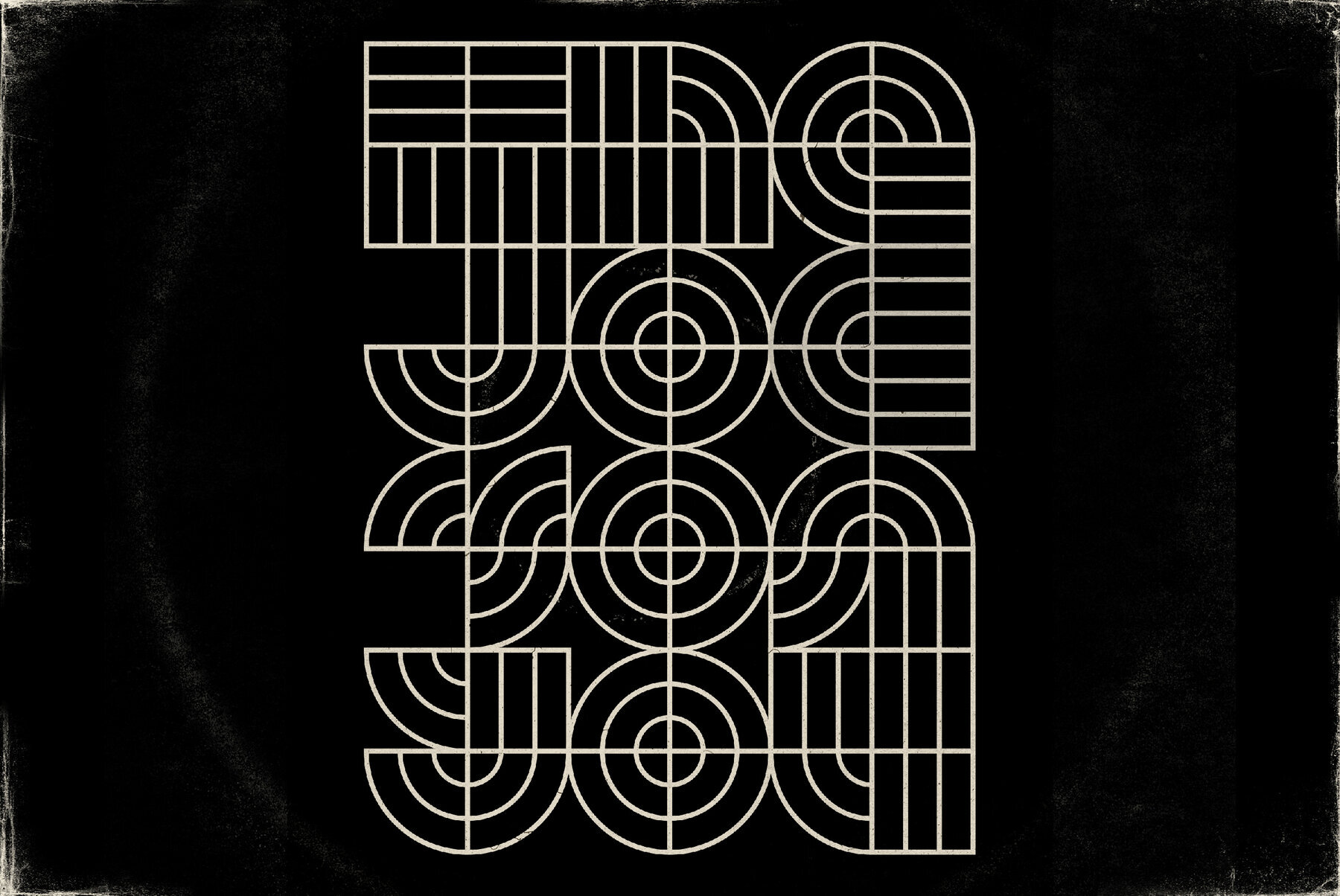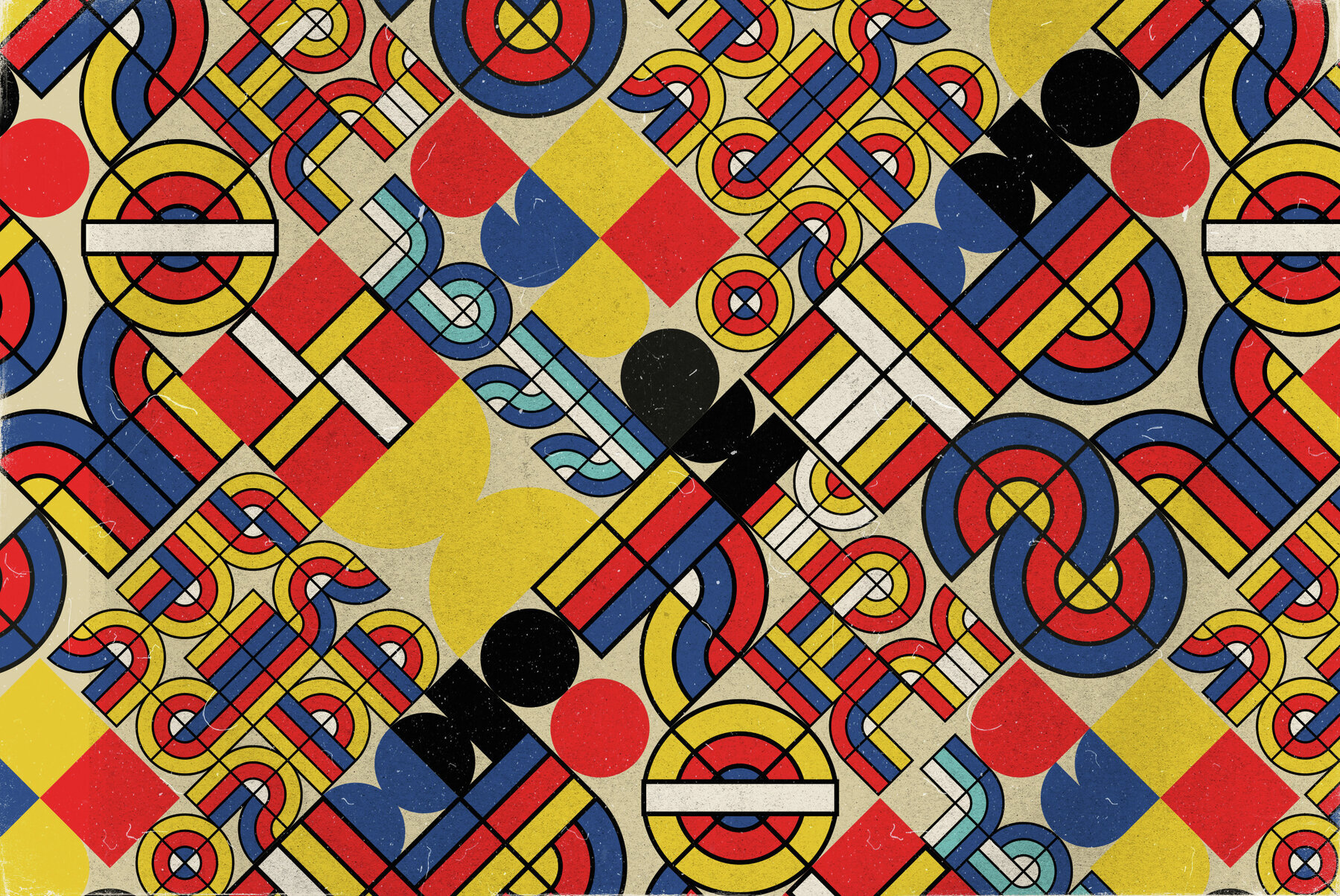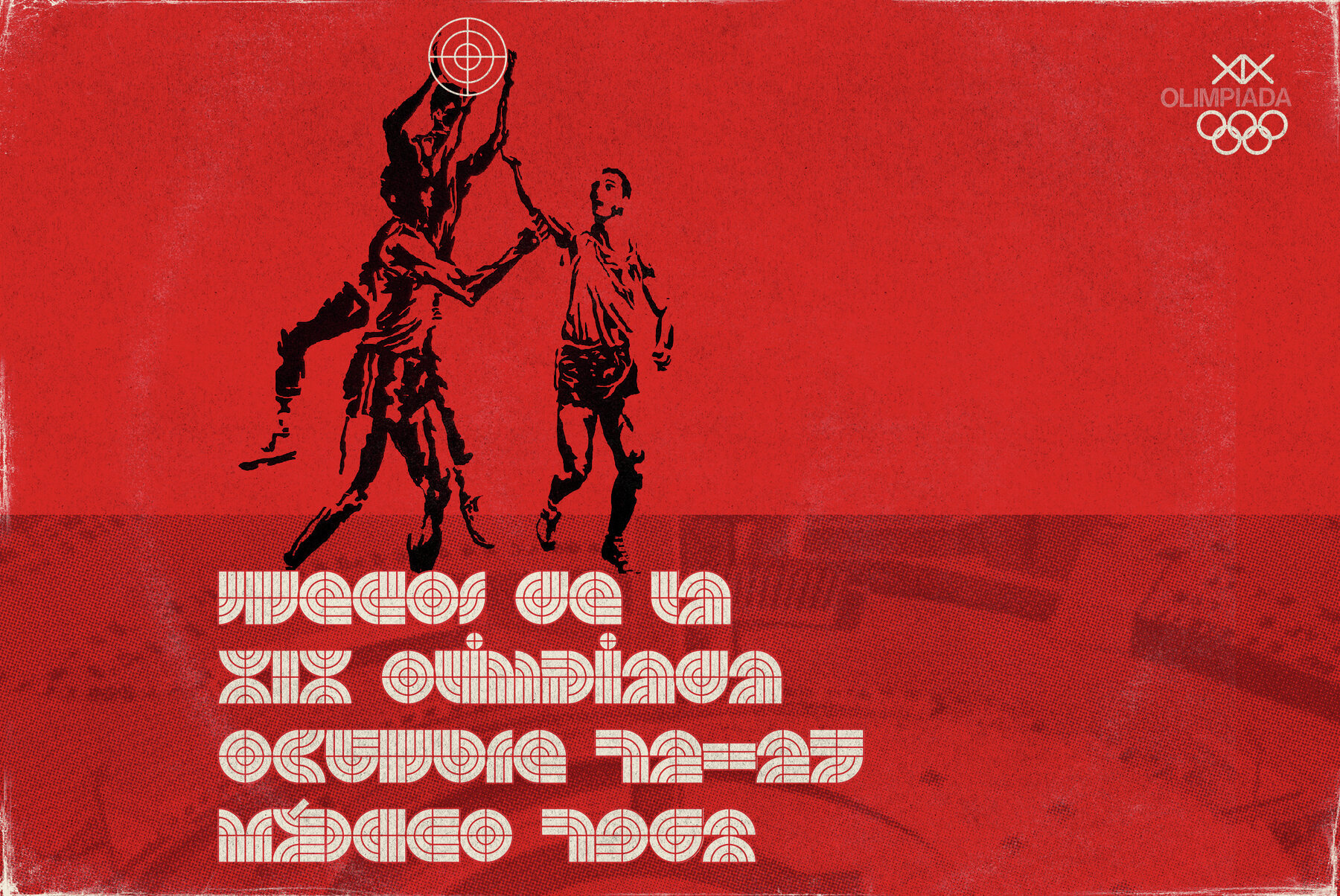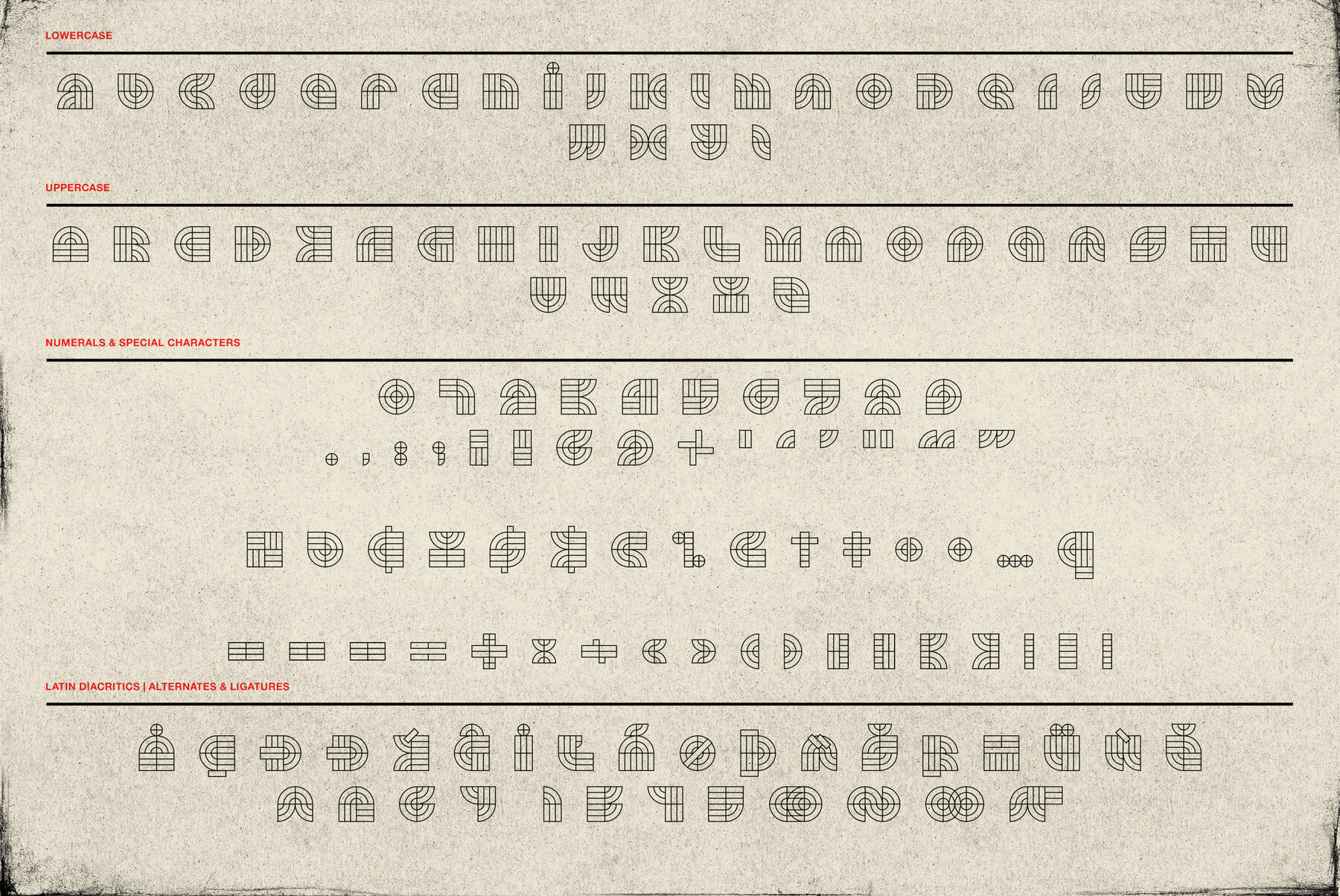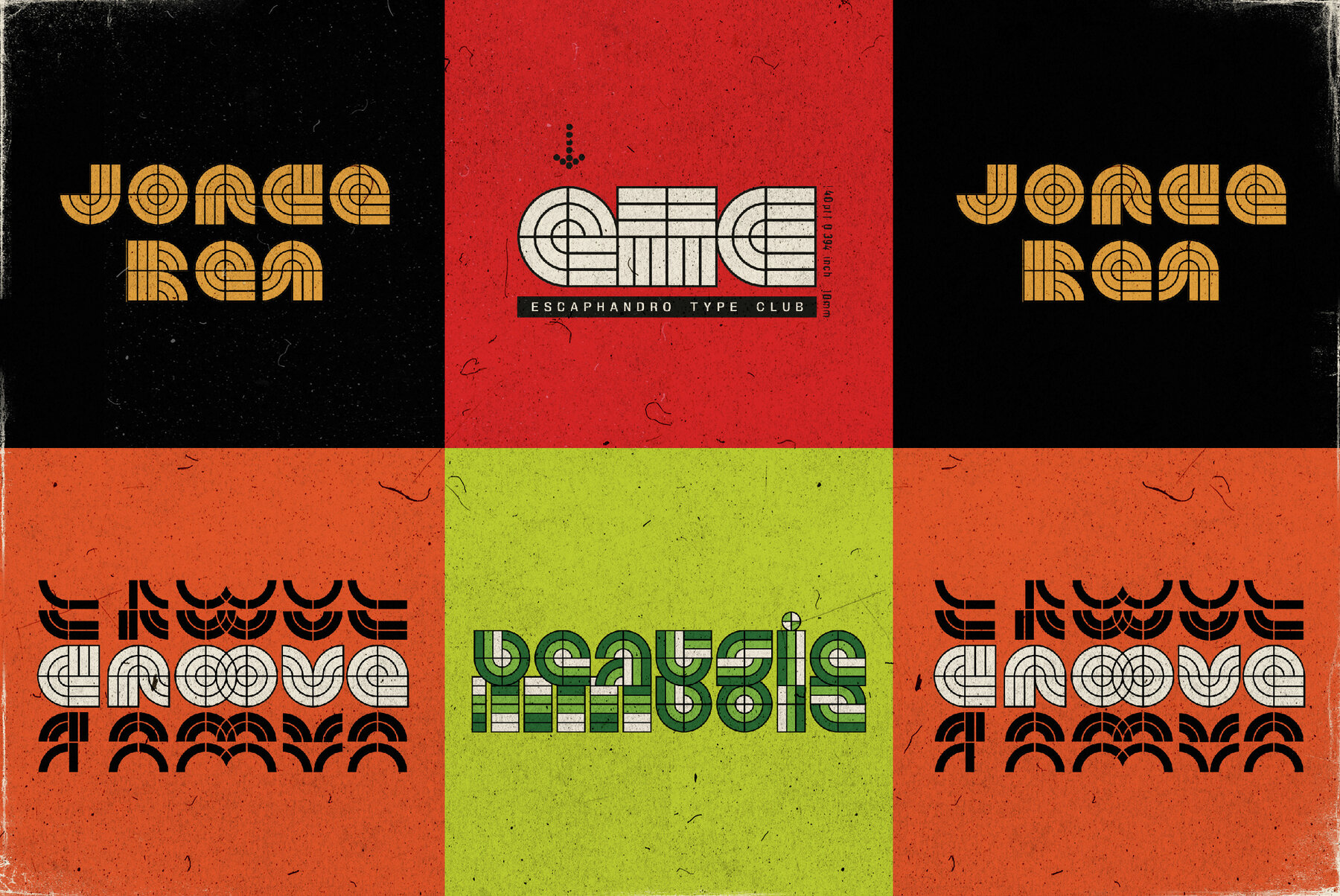
JOC Font
JOC Fill
JOC Line
JOC is a digital revival of a lost 1970s alphabet, designed by Gabriel Fumanal Martinez for Letraset in 1973, as part of competition held by the notorious type company. Joc means "a play on words" in catalán. Since its inception, a lot has changed about how we approach a new type design, mostly considering a considerably larger character set – the font name and is a hint to explore other possibilities of its very strict modular structure. The spirit of early 1970s graphic design is also a major influence. The new digital version has a complete set of letters and numerals, punctuation and full latin diacritics. Also included are a few alternates and ligatures that somehow fit the design play; and a complementary weight (Fill) as a secod layer font. Its almost illegible nature reinforces the graphic play and experimental use, ideal for logotypes and large applications.